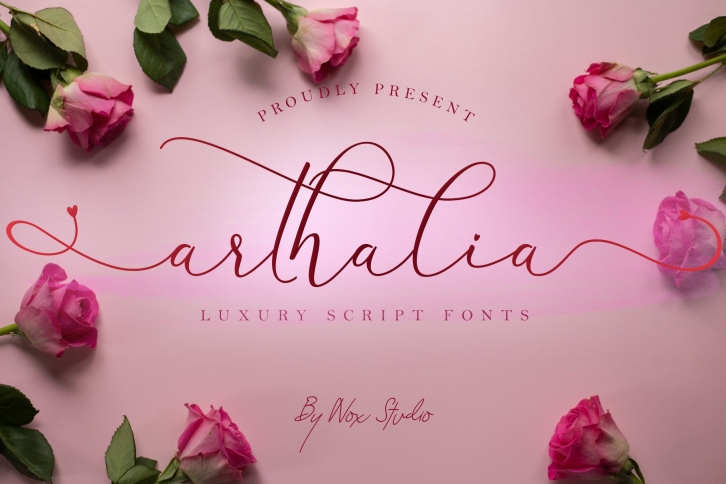
Arthalia is a beautiful font that was designed by Nox Studio. It's a great choice for designers and creatives who need such a font. It was released on April 14, 2021 and the file size is 18.18 MB. Arthalia may give a more youthful, expressive and casual look to your project. It is a very beautiful, refined, elegant, and high-quality font.